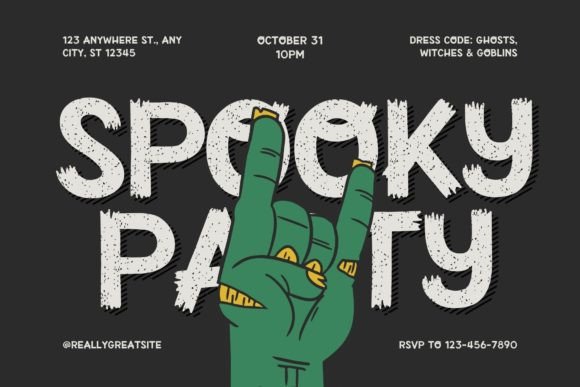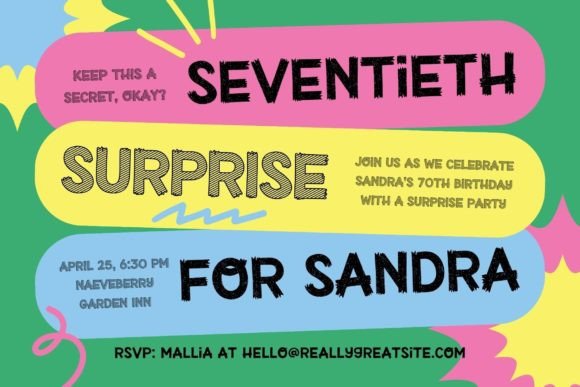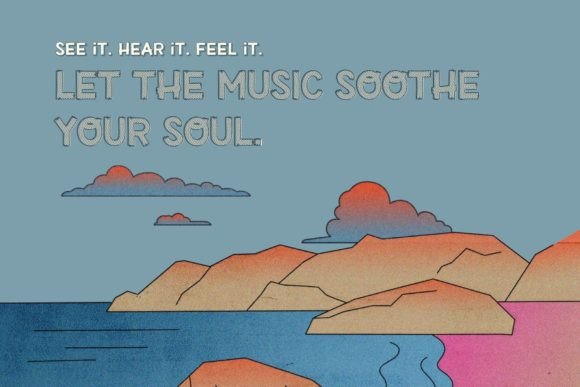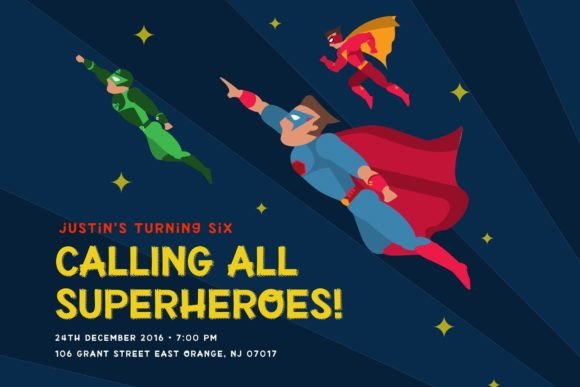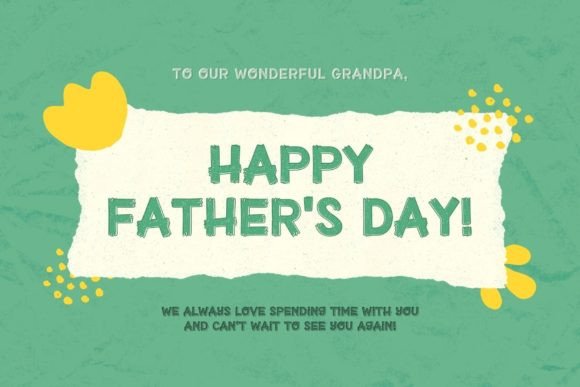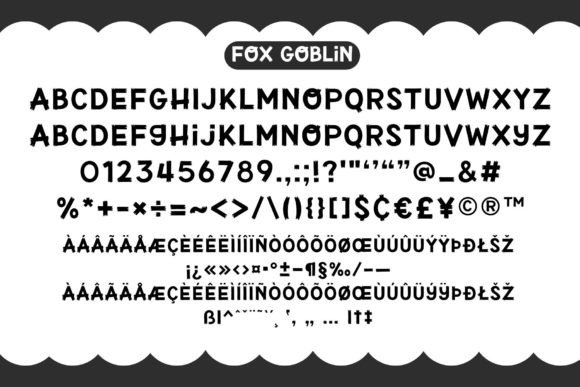
Introduction to Fox Goblin Font
Have you ever stared at a blank design canvas, waiting for that spark of inspiration to strike? For many creatives, that moment comes when they stumble upon a font that perfectly captures the essence of their project. For me, that moment came when I discovered the Fox Goblin Font – a 4-style display font that adds a captivating and energetic touch to any design.
With its vibrant and expressive design, the Fox Goblin Font is a valuable resource for designers looking to add a unique twist to their high-quality designs. Whether you’re working on a creative project or just need a font to elevate your business cards or t-shirt designs, this font is sure to impress. And the best part? It’s available for free download, making it an accessible design resource for anyone looking to take their designs to the next level.
- High-quality design resource for creative projects, offering a unique and eye-catching style.
- Unique characteristics: a blend of modern and mystical elements, featuring intricate details and a sense of whimsy.
Honest Review: Fox Goblin Font
As a designer, I’m always on the lookout for high-quality fonts to enhance my creative projects. Recently, I stumbled upon the Fox Goblin Font, which caught my attention with its unique, mystical vibe. I decided to give it a try and see if it lived up to its promise.
- ✨ Unique, quirky design that’s perfect for projects with a touch of magic or fantasy.
- ⚠️ Limited font styles and variations, which might not be ideal for projects requiring a more extensive font palette.
- ⚠️ Some users may find the font’s quirky design too playful or distracting for certain projects.
Overall, I’m impressed with the Fox Goblin Font’s unique design and high-quality rasterization. While it may not be suitable for every project, it’s an excellent addition to any designer’s toolkit. If you’re looking for a fun, creative font for your next project, I’d definitely recommend giving it a try.
Tips for Getting the Most Out of Fox Goblin Font
To get the most out of the Fox Goblin Font, use it in combination with other design elements, such as images and graphics. Experiment with different font sizes, colors, and styles to create a unique and eye-catching design. The font’s transparent background also makes it easy to combine with other design elements, such as textures and patterns.
Common Use Cases for Fox Goblin Font
The Fox Goblin Font is perfect for a variety of creative projects, including social media graphics, posters, logos, typography-based designs, presentations, and documents. Its high-quality design and transparent background make it a versatile design resource for any creative project.